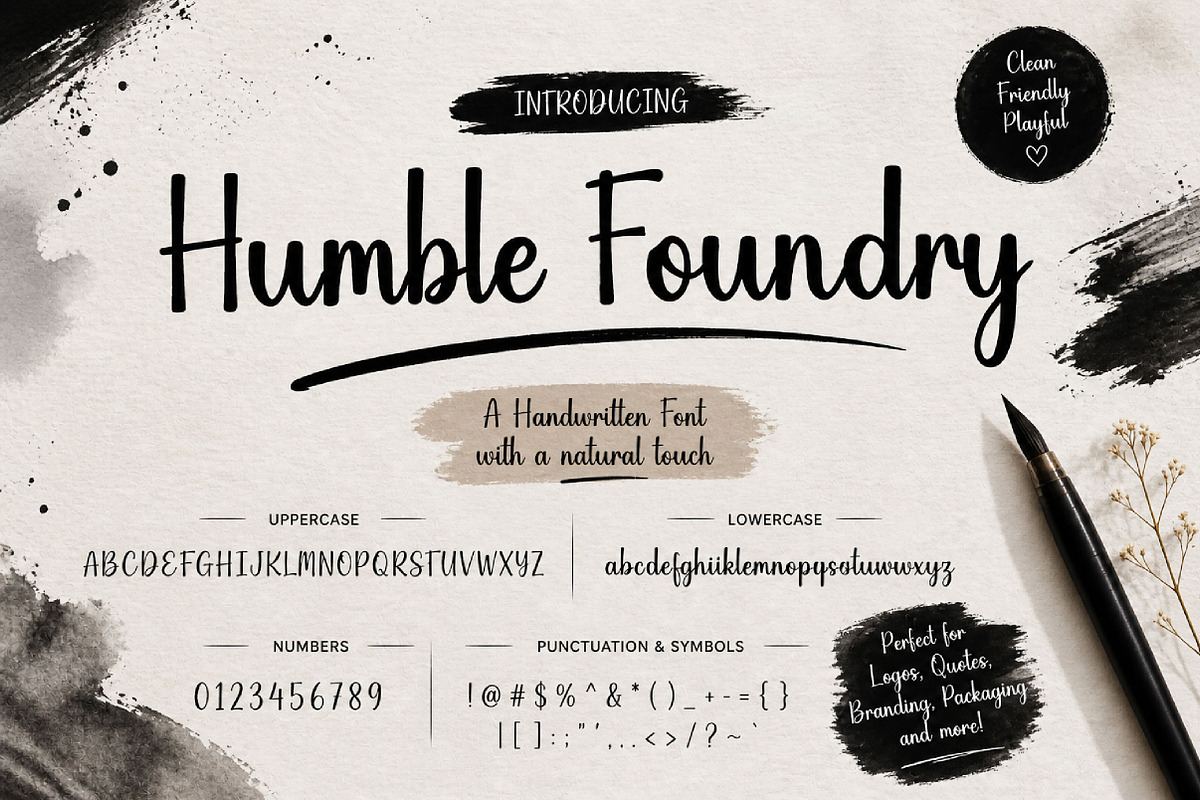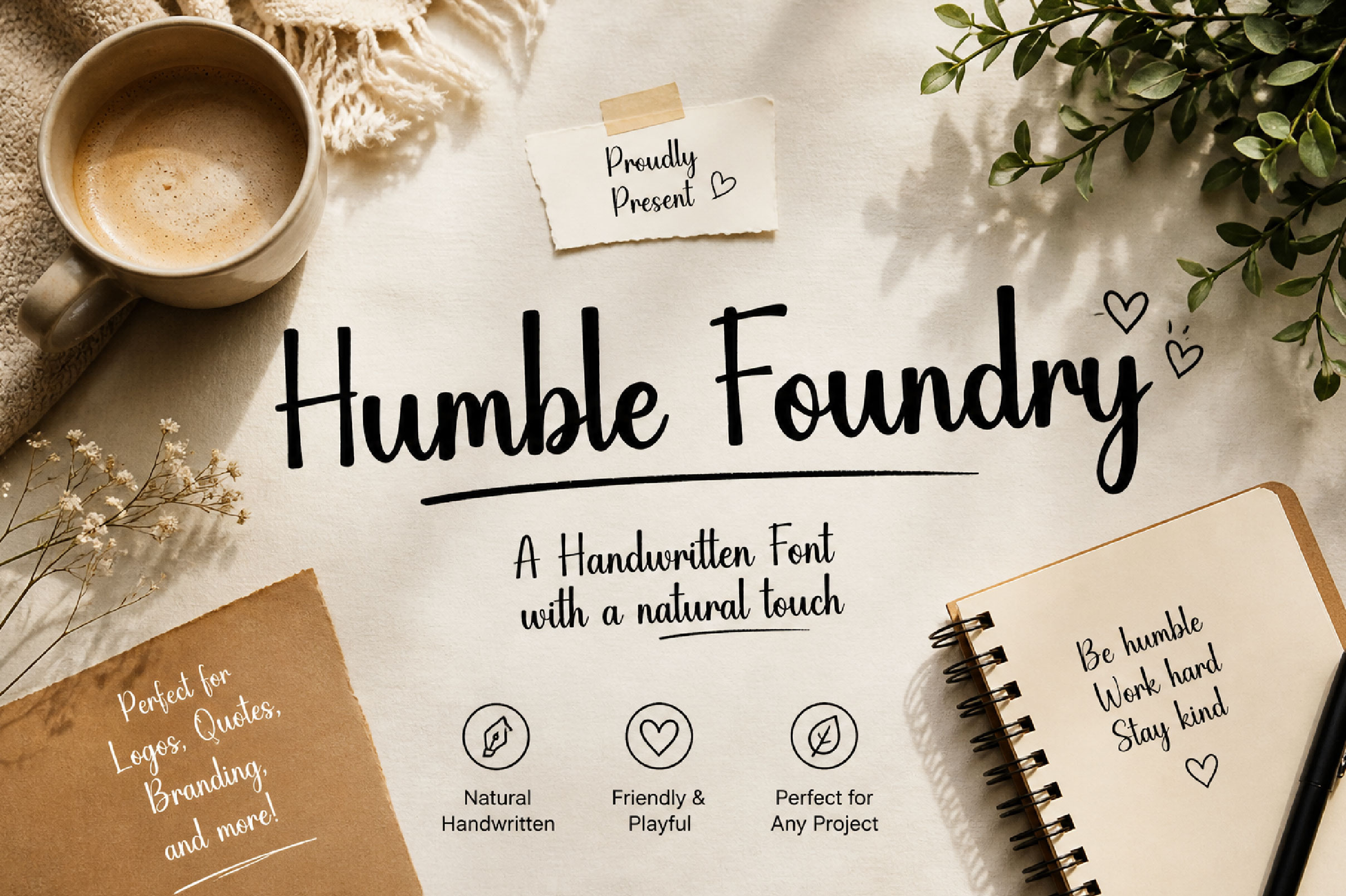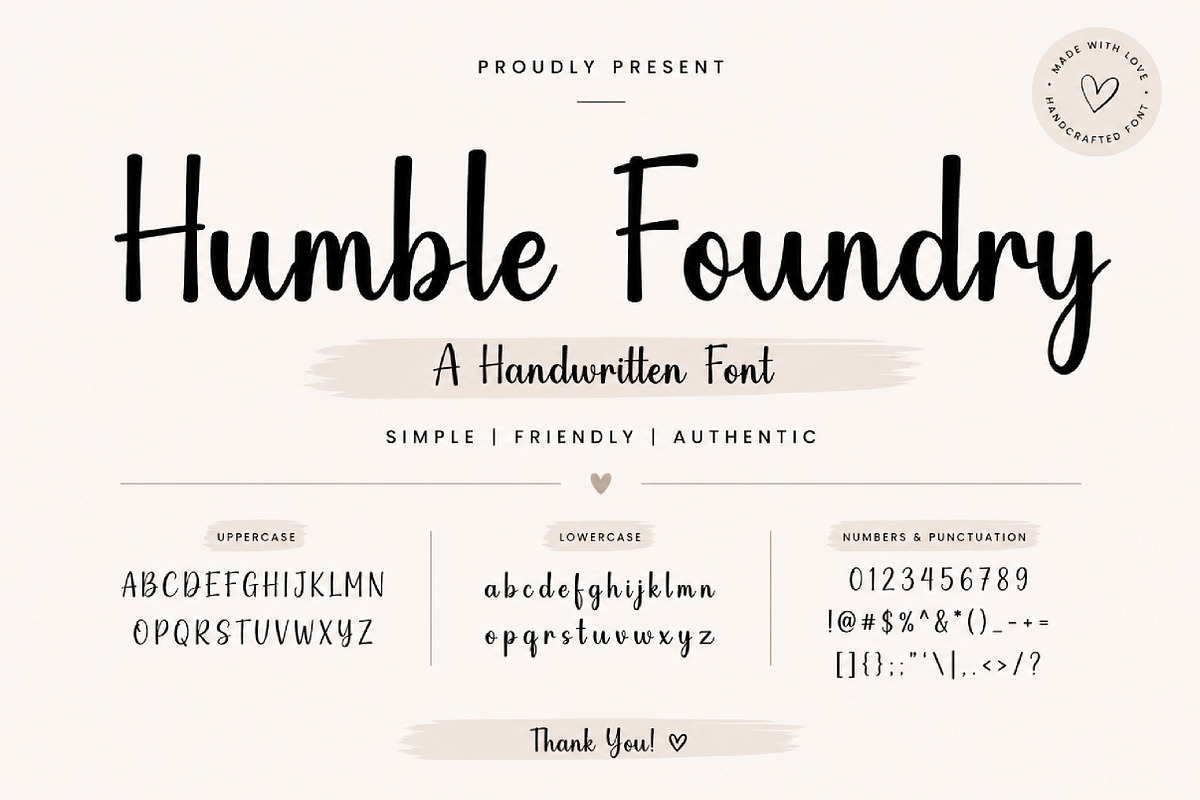
Humble Foundry Handwritten Font
Humble Foundry – Elegant Handwritten Script Font
Humble Foundry is a smooth, elegant, and modern handwritten script font, perfect for branding, logos, packaging, invitations, quotes, and stylish creative projects.
Humble Foundry is a refined handwritten script font designed to bring warmth, elegance, and personality into your designs. With its tall letterforms, smooth strokes, and natural handwritten flow, this font creates a clean and stylish look that feels both modern and timeless.
Its graceful script style makes Humble Foundry perfect for projects that need a personal yet professional touch. Whether you are creating branding materials, logo designs, wedding invitations, product packaging, social media graphics, website headers, or quote layouts, this font helps your typography feel polished, expressive, and memorable.
Branding and logos
Wedding invitations
Product packaging
Quotes and typography
Greeting cards
Website headers
Beauty and lifestyle projects
Personalized stationery
Elegant display designs
Uppercase letters
Lowercase letters
Elegant handwritten script style
Smooth and flowing strokes
Clean and modern appearance
Perfect for display use